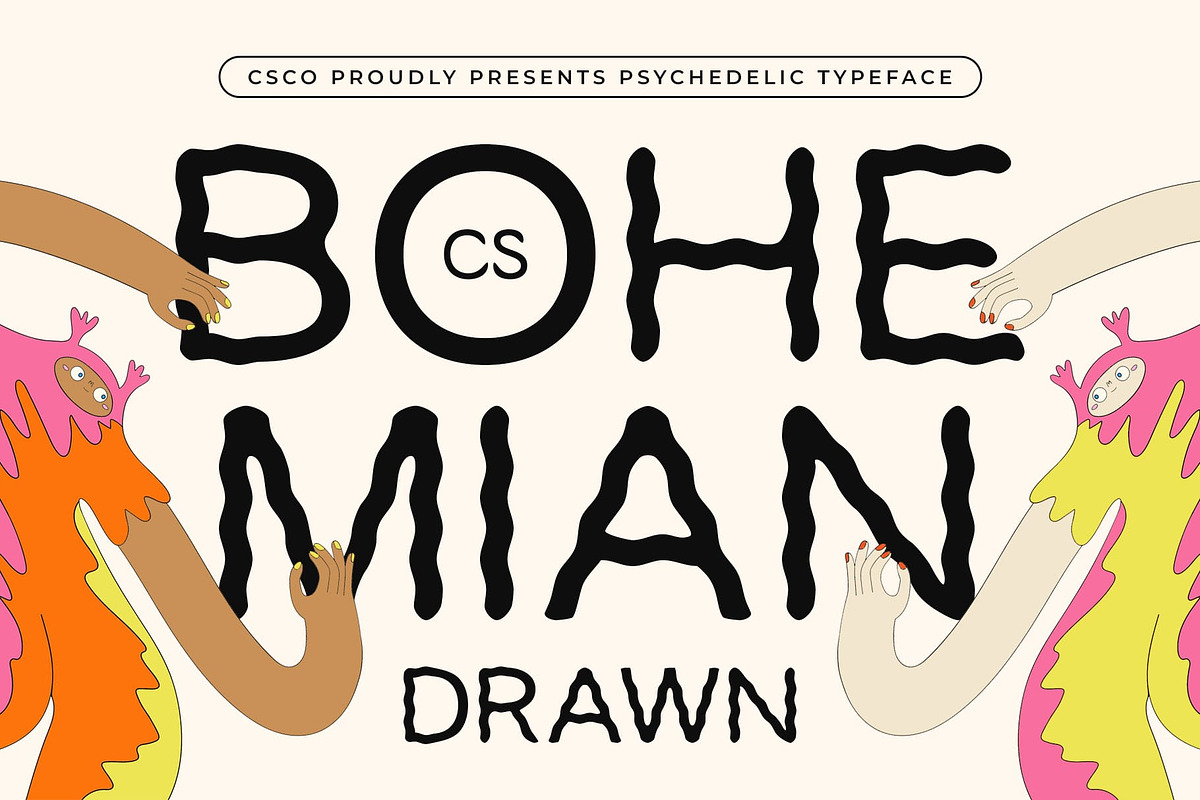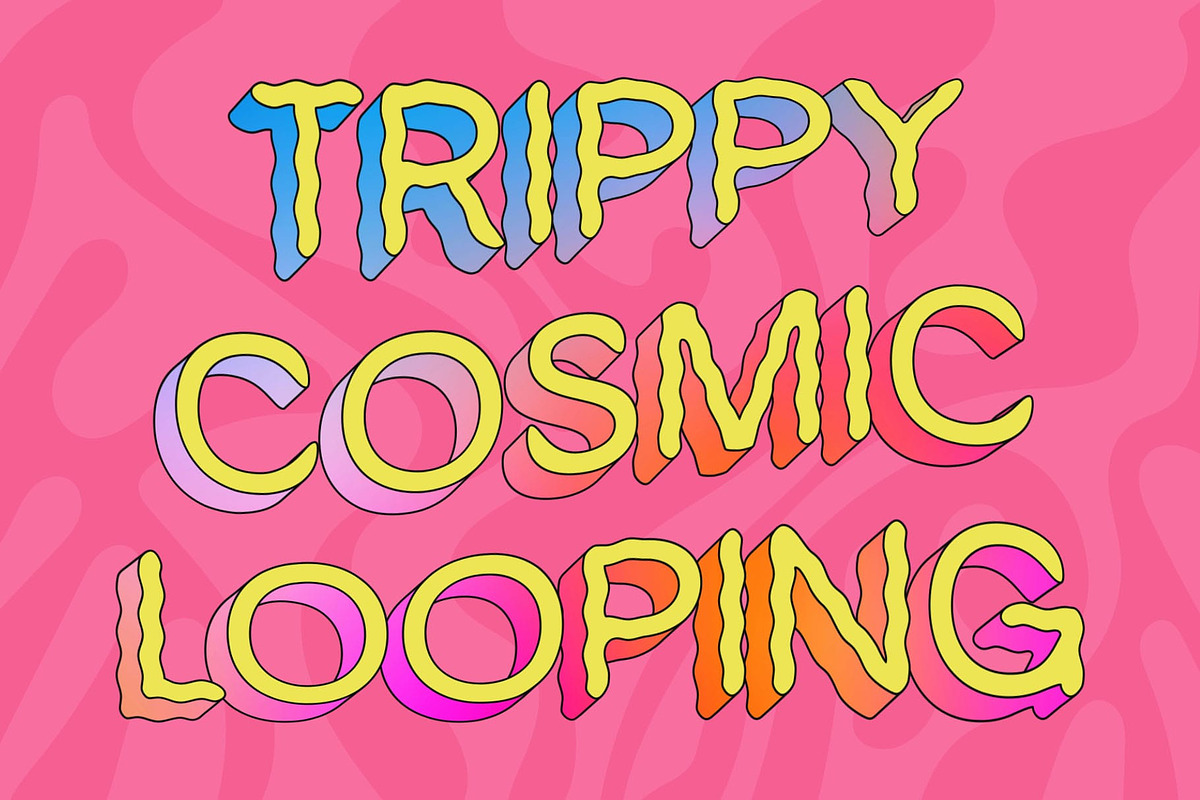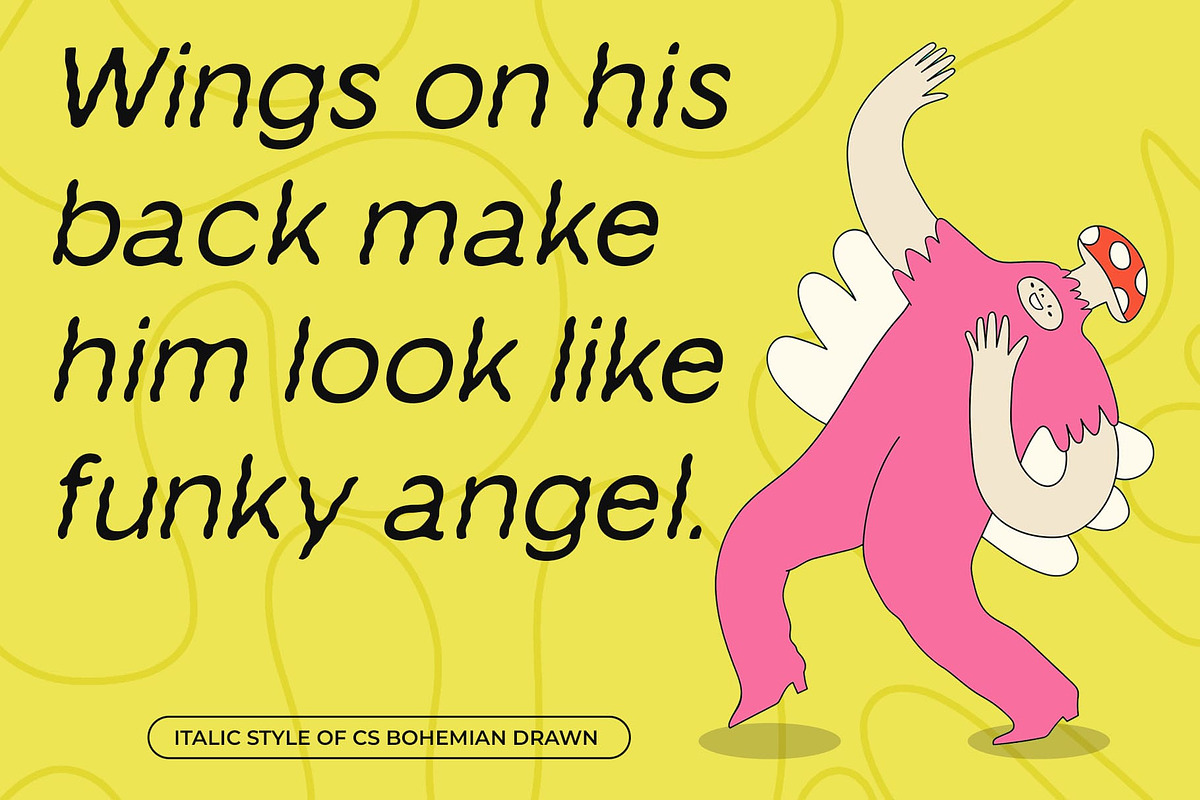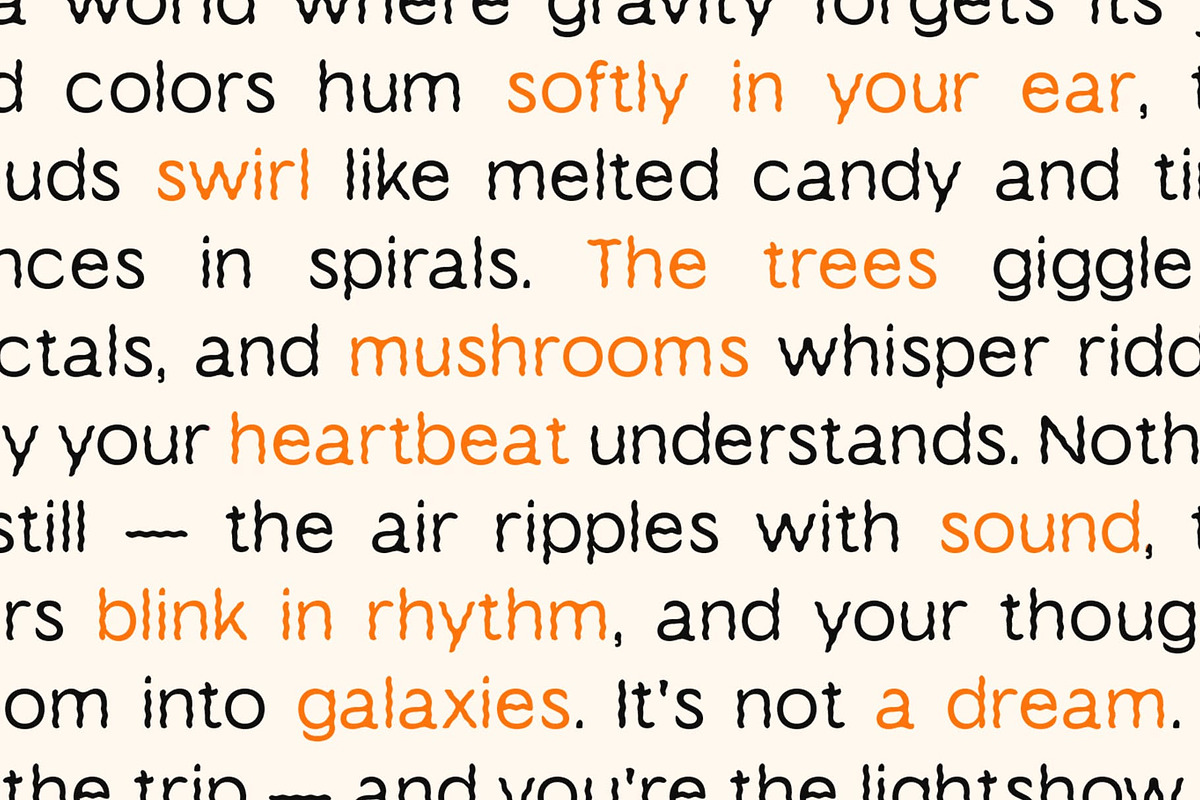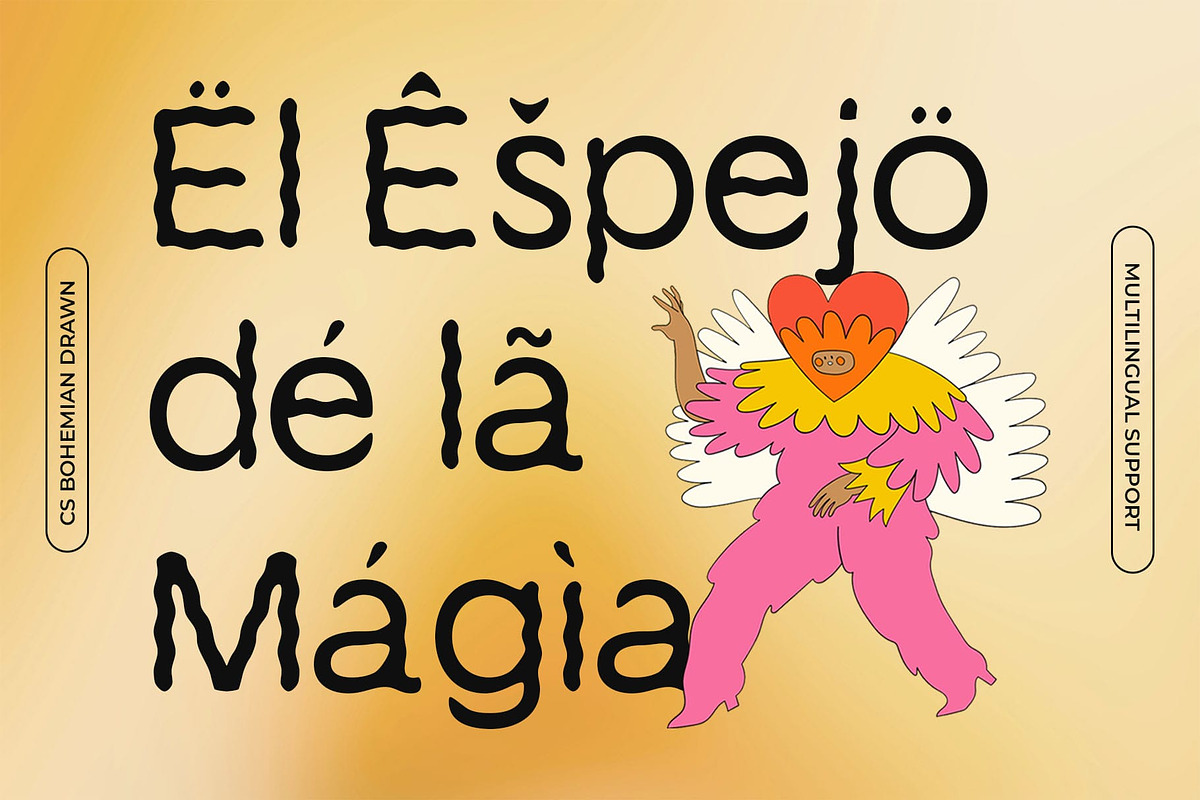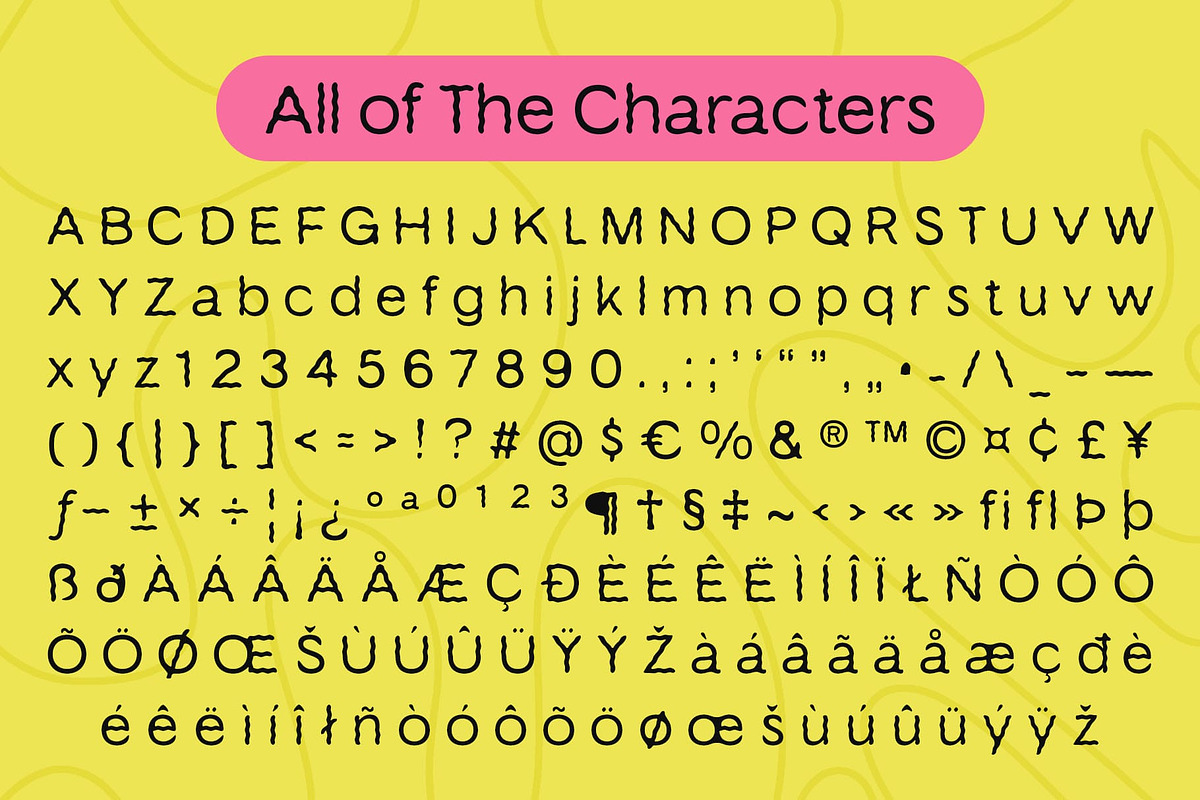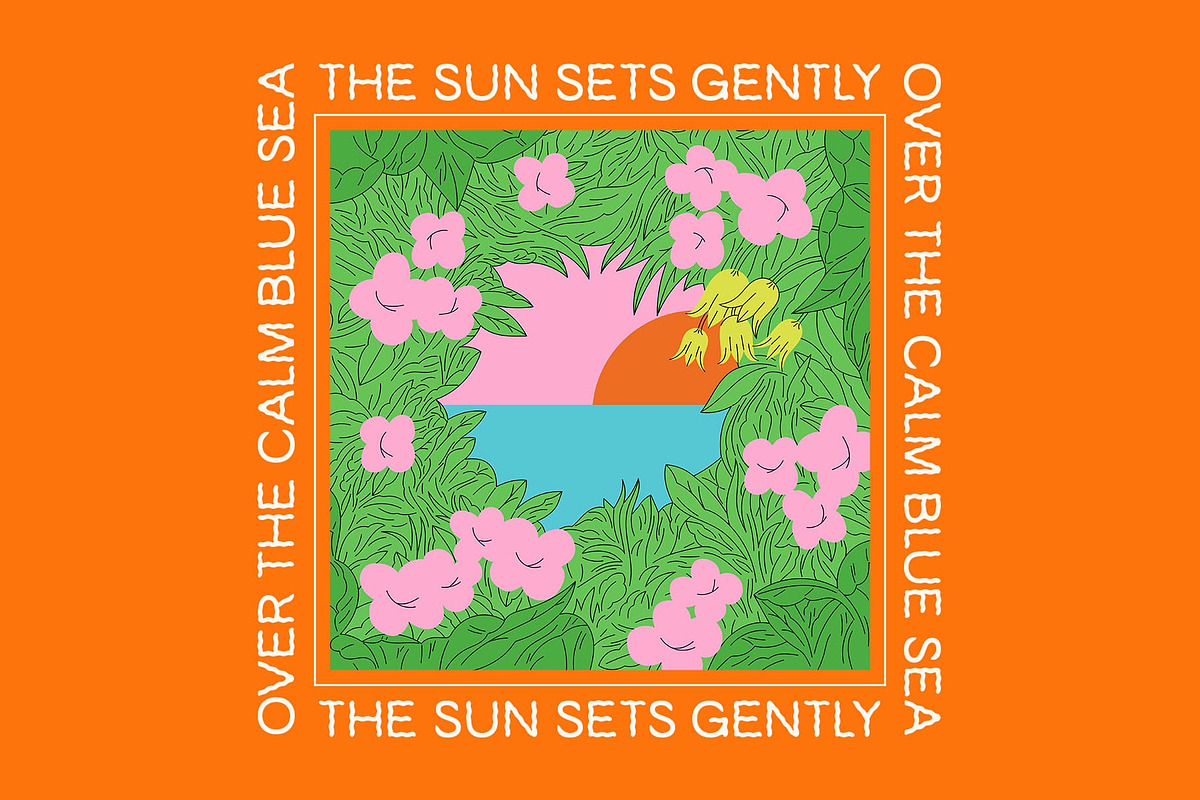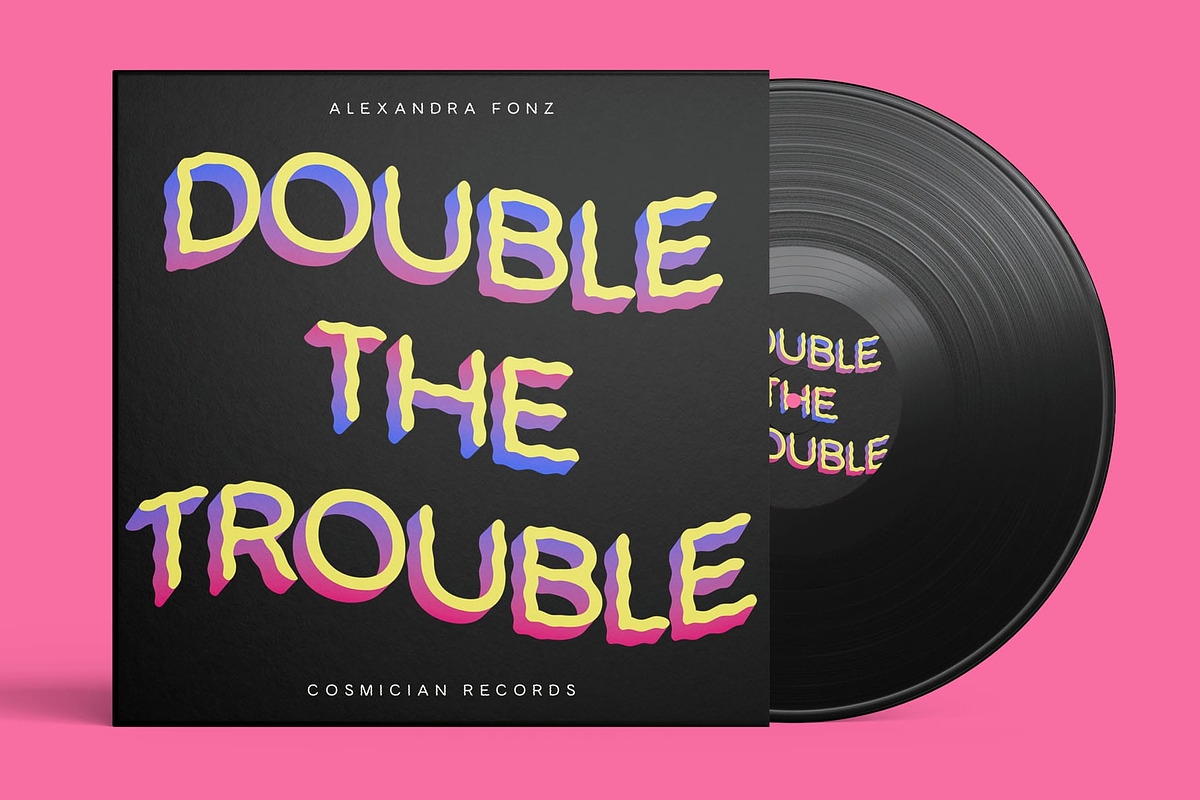
CS Bohemian Drawn
CS Bohemian Drawn – Psychedelic Expression Meets Modern Elegance
Contemporary Sans Serif with a Psychedelic Twist CS Bohemian Drawn is a modern sans serif display font that fuses clean structure with bold psychedelic influences. Its letterforms feature dynamic curves, warped silhouettes, and expressive shapes that echo the free-spirited energy of 1960s design—reimagined for today’s creative world.
Hand-Drawn Effect for Artistic Texture The drawn effect adds an organic, handcrafted quality that enhances its artistic charm. Each curve and contour feels intentional and human, giving the font a raw yet polished personality perfect for experimental designs with emotional depth.
Bold and Imaginative Design Statement This expressive font brings a visual rhythm and fluidity that commands attention while remaining readable and well-structured. It’s ideal for projects that seek to push boundaries with creativity, emotion, and visual impact.
Perfect for Music, Editorials, and Creative Branding Whether used in music posters, indie publications, or imaginative branding, this experimental font brings a bold, expressive soul to any design. It’s perfect for creatives who want their typography to be as unique and captivating as their message. Perfect for projects that demand individuality and visual impact, this unique font thrives in music-related designs, editorial spreads, album covers, or branding for avant-garde or creative industries. It speaks to audiences who value aesthetics that are imaginative, soulful, and deeply artistic—while retaining clarity and function.